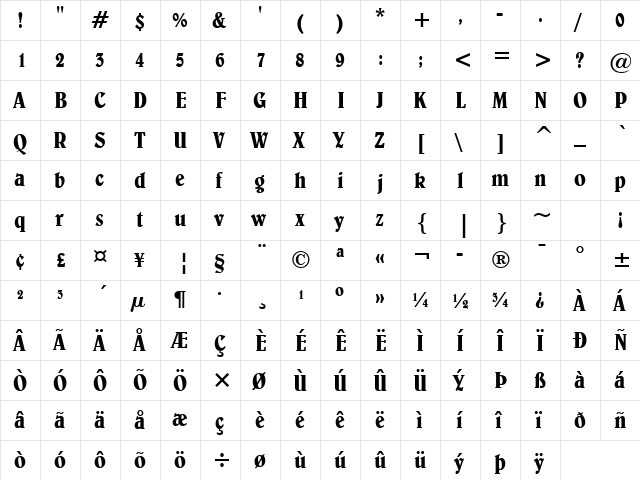
Belwe Bold Font Preview
Belwe Bold
Belwe Bold Font Details
Design Context for Belwe Typeface
Belwe is a composed and adaptable typeface that performs quietly and consistently across a wide range of design contexts. Its bold stroke weight gives it real presence on the page.